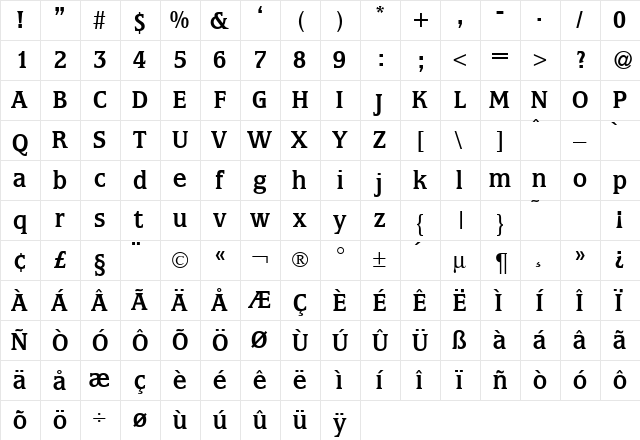
MarlonDB Normal Font Preview
MarlonDB Normal
Design Context for MarlonDB Typeface
MarlonDB offers clean, dependable letterforms without strong stylistic allegiance, making it a practical choice for designers who need flexibility.